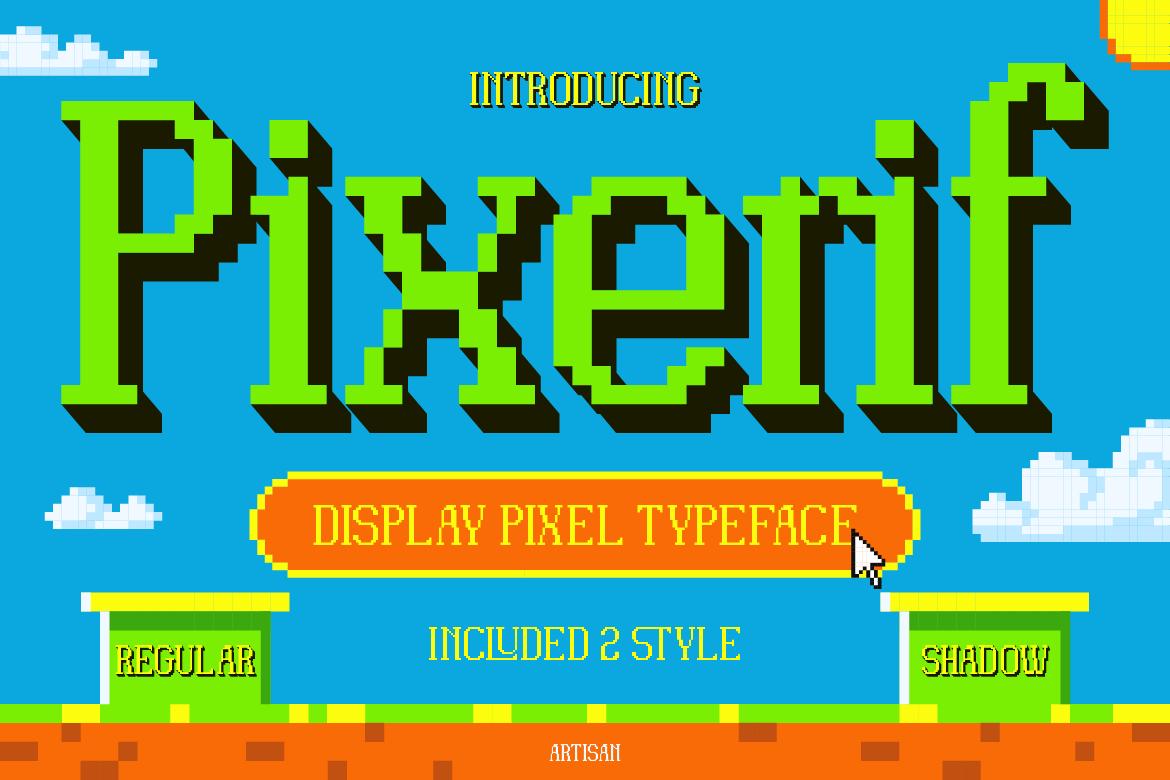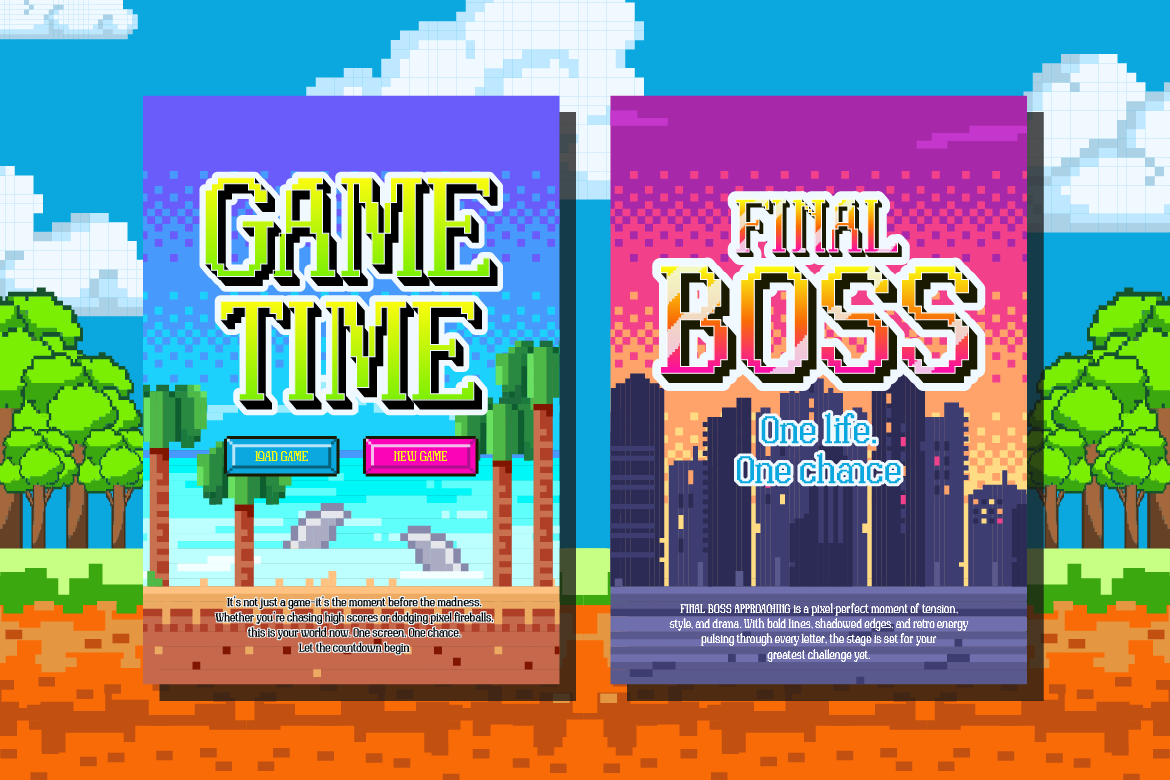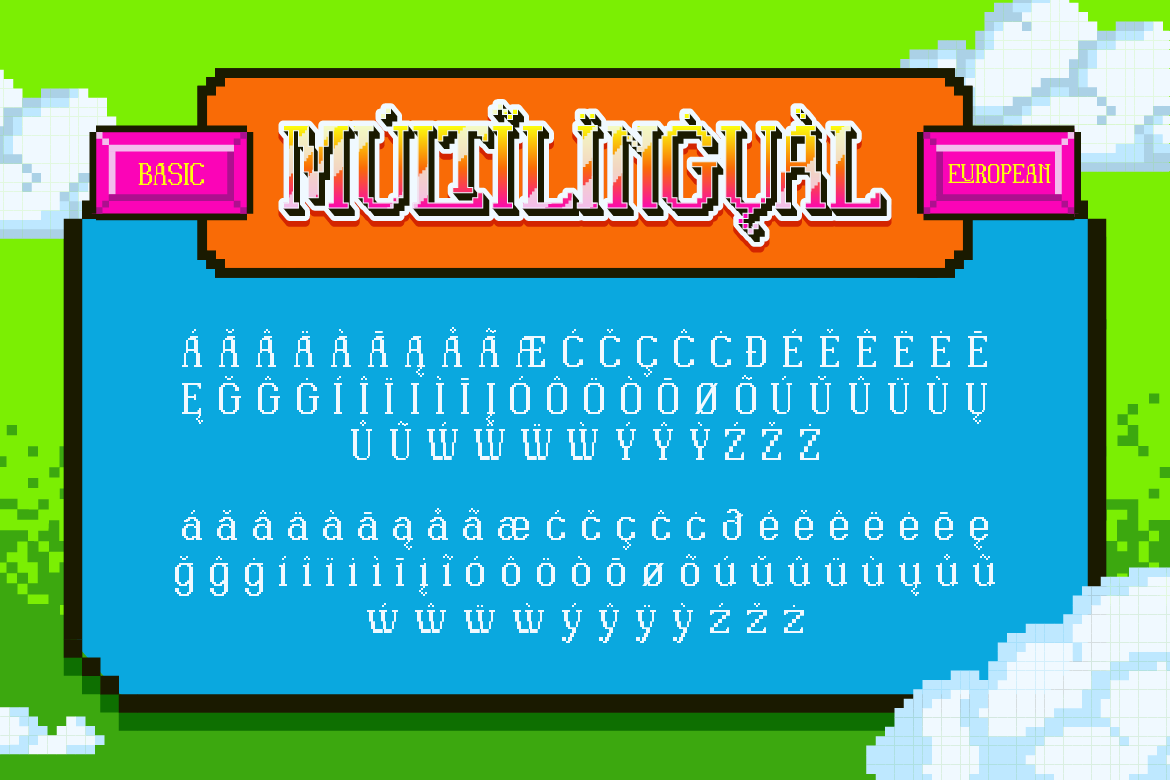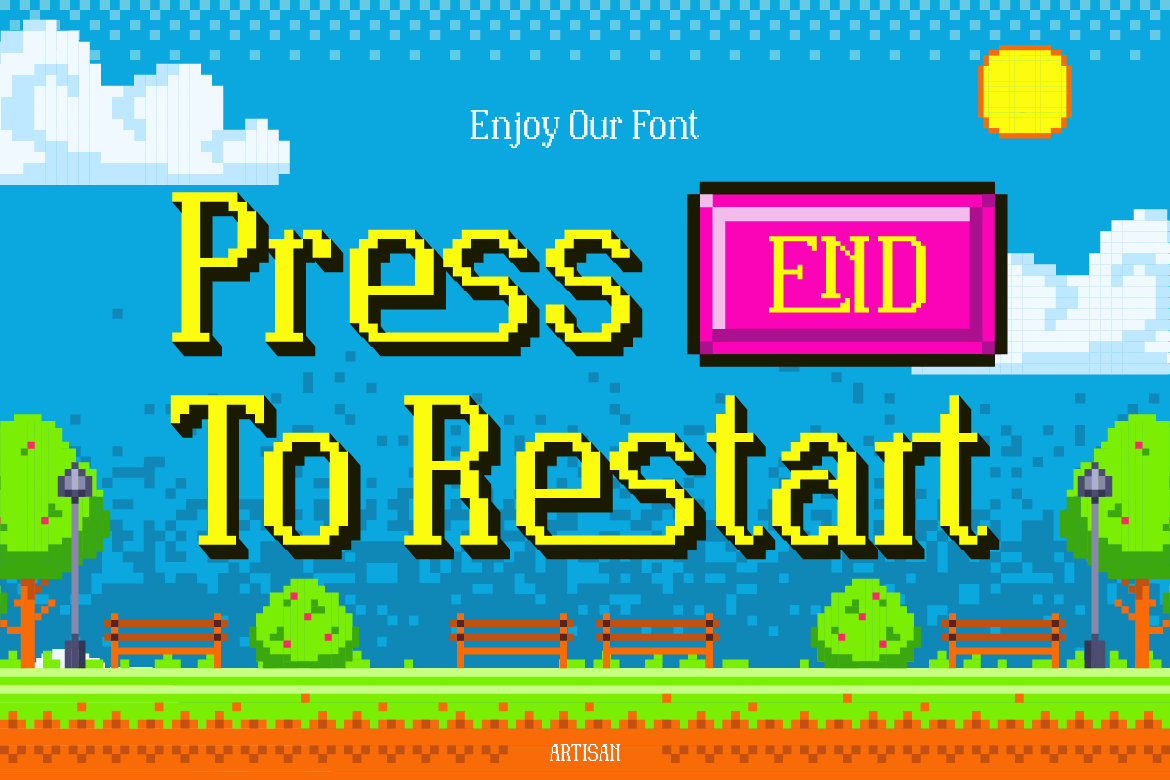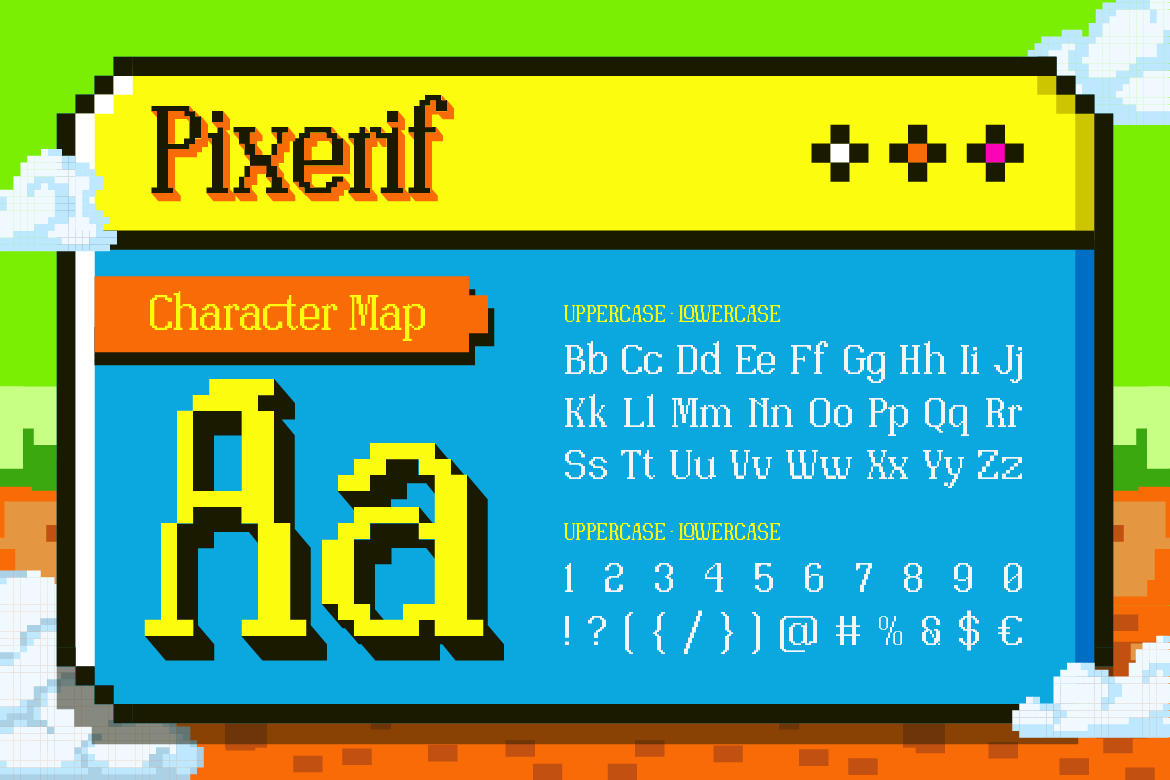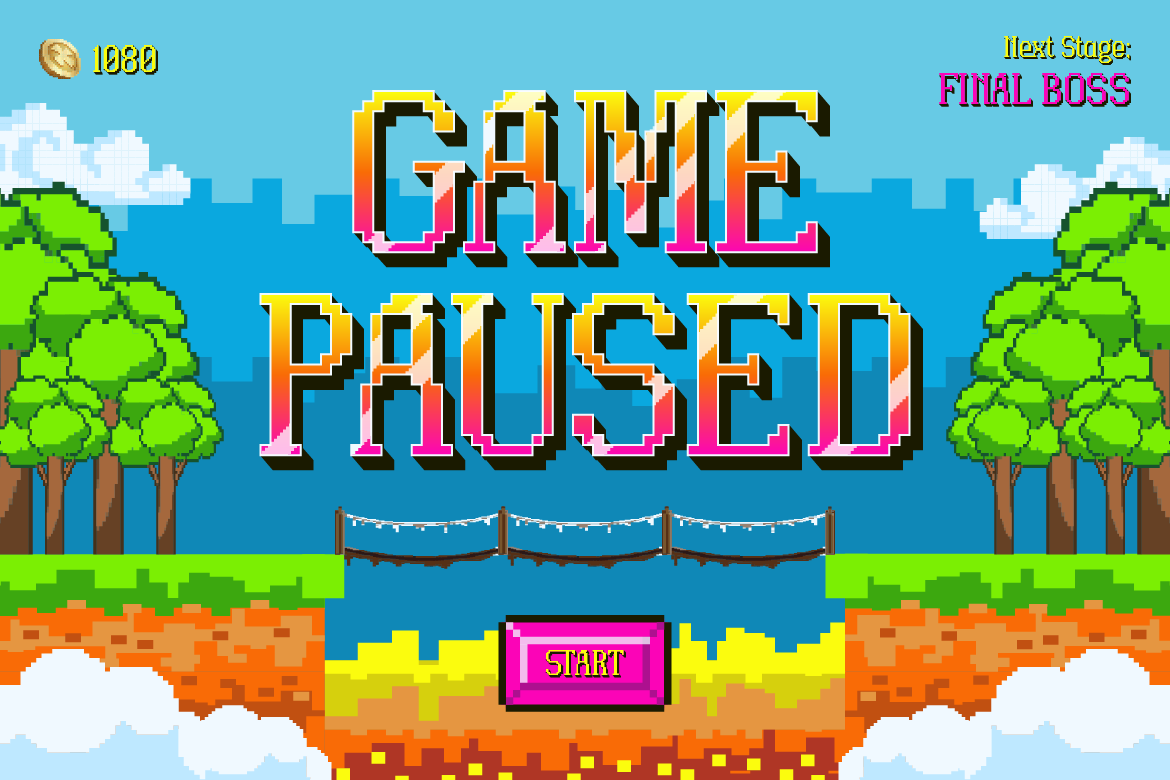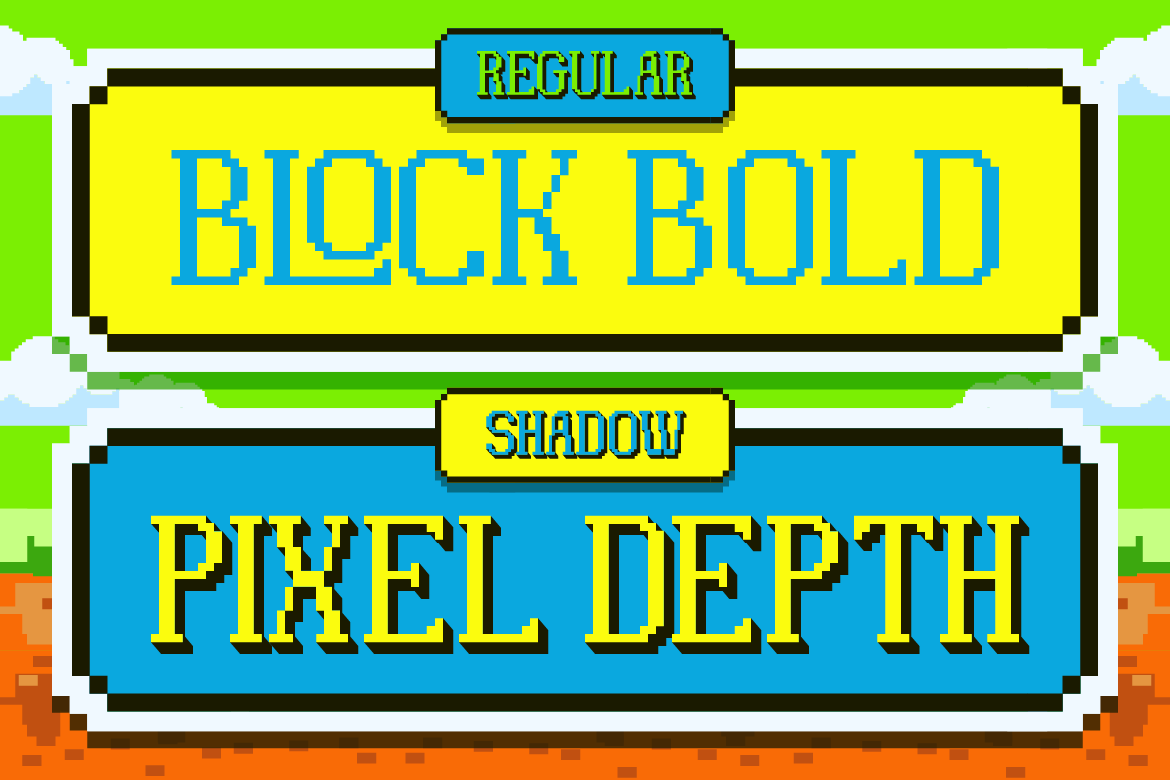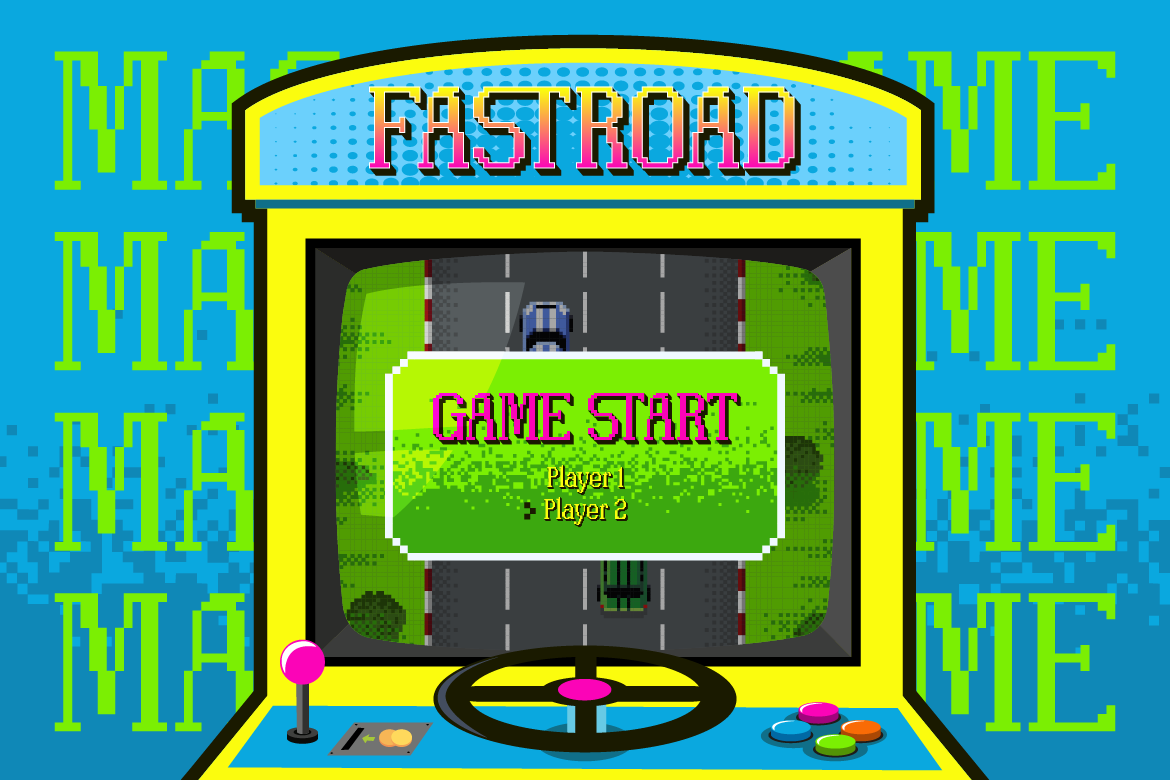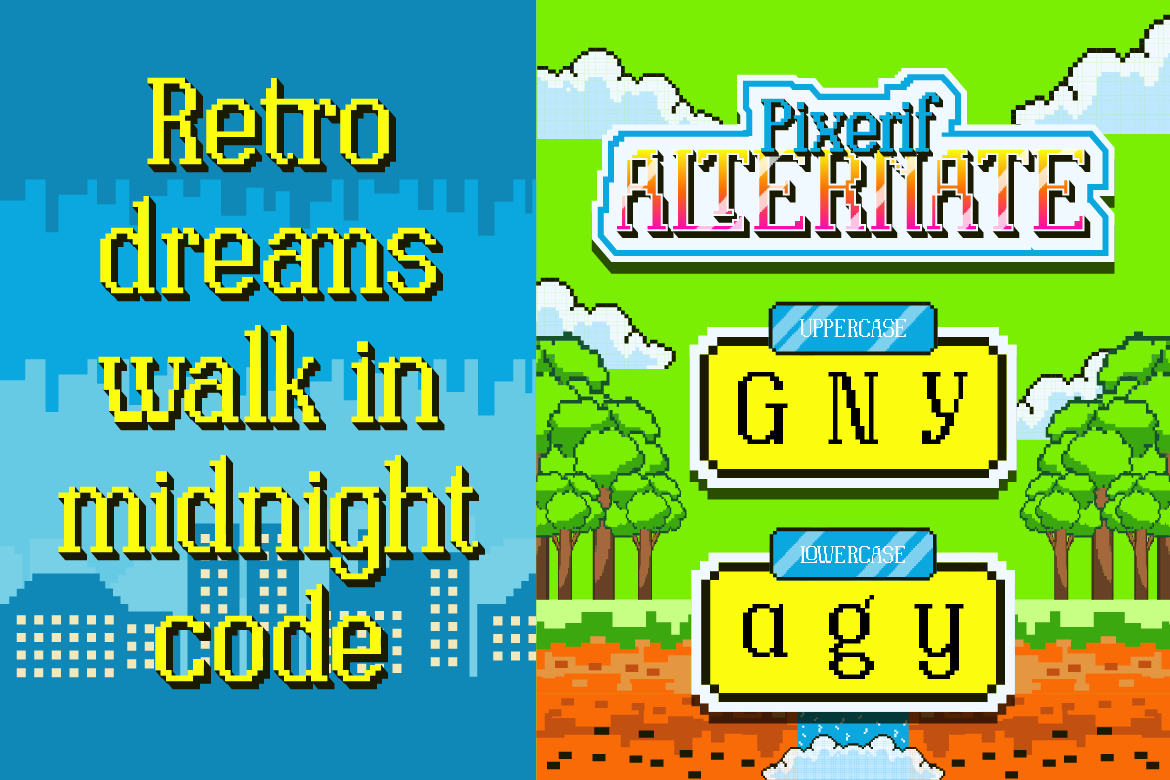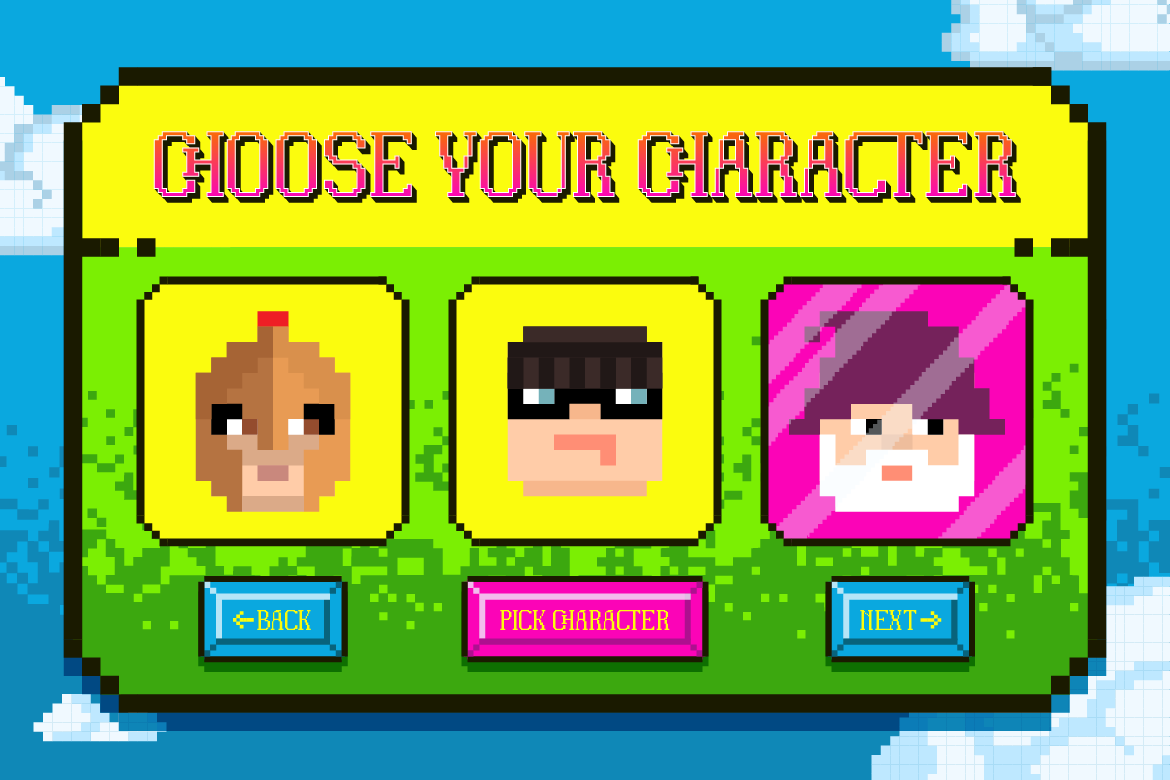
Pixerif
REGULAR
SHADOW
Let the GAME on….
I’m so happy to show you my very first font called Pixerif. It’s clearly inspired by the iconic 8bit games fonts; bright color, square pixel, clear line and fun.
Came in 2 style, Regular Style as a basic style to bring clear massage and Shadow Style to make the text standout as logo. Really easy to use or can be fun with combination of both style.
Perfect for:
• Video games & indie games
• Pixel art projects
• Retro arcade designs
• Game titles & UI design
• Logos & branding
• Posters & thumbnails
• Social media content
• Merchandise & packaging
• Stickers & fun creative projects
• Headlines & display typography
• A – Z set (Uppercase & Lowercase)
• Number
• Punctuation
• Alternates
• Ligatures
• Multilingual